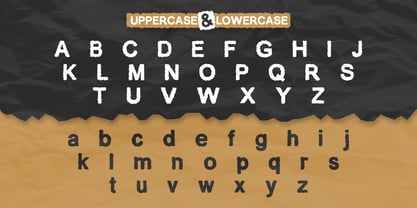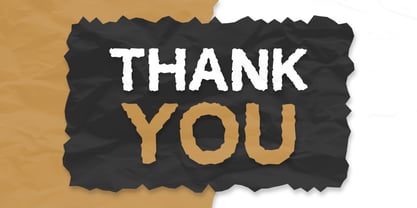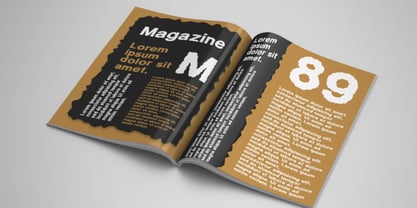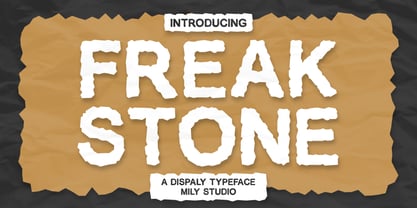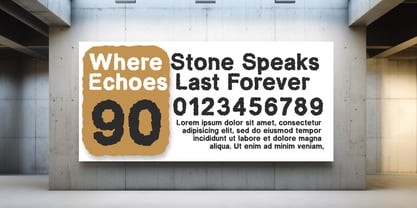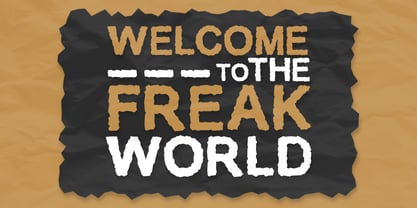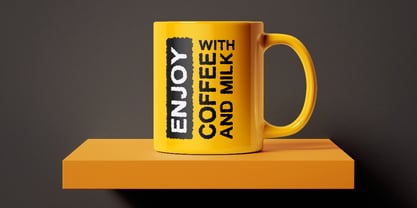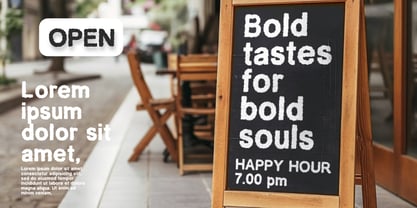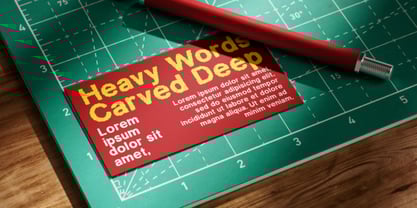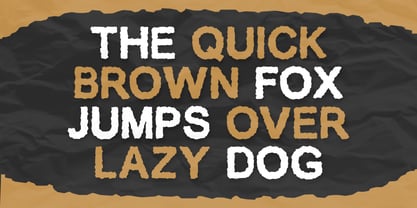
Freak Stone
by Mily Studio
Freak Stone is a display font inspired by rock stone-style typography. This font is perfect for designs that aim to be more attractive. Created with a high level of aesthetic quality, it is suitable for T-shirts, comics, book covers, posters, merchandise, logotypes, and much more.